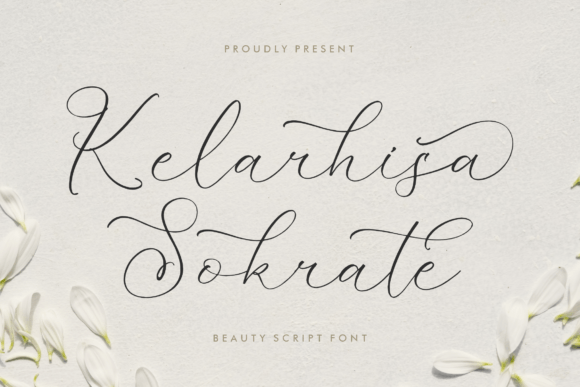
Unleash the Power of Kelarhisa Sokrate, the Ultimate Script Font for Online Signatures
Take your online presence to new heights with Kelarhisa Sokrate, an exquisite script font meticulously designed to elevate your digital signature with grace and sophistication. Inspired by the timeless beauty of calligraphy, Kelarhisa Sokrate captures the essence of handwritten elegance, transforming your online interactions into a work of art.
Crafted by the visionary team at Storytype Studio, Kelarhisa Sokrate is more than just a font; it's an expression of your individuality. Its captivating curves and delicate swashes dance across the screen, leaving an unforgettable impression on those who encounter your digital signature. Designed with the modern professional in mind, Kelarhisa Sokrate effortlessly enhances your online presence, whether you're an entrepreneur, artist, or influencer.
Step into a world of sophistication and refinement as you embrace Kelarhisa Sokrate's boundless versatility. With its inherent charm, this font seamlessly adapts to a myriad of creative endeavors. Whether you're designing an elegant logo, crafting a book or movie title that exudes timeless appeal, or seeking to elevate your fashion brand with a touch of luxury, Kelarhisa Sokrate is your perfect companion.
Elevate your social media presence with Kelarhisa Sokrate, the font that commands attention and leaves a lasting impression. Imagine your Instagram feed adorned with captivating quotes and messages, each rendered in the beautiful strokes of Kelarhisa Sokrate. Your audience will be mesmerized by the visual allure of your posts, drawn in by the elegance and grace that Kelarhisa Sokrate effortlessly exudes.
Kelarhisa Sokrate is more than just a font; it's an investment in your online reputation. Its timeless beauty and unwavering quality ensure that your digital signature will remain relevant and impactful for years to come. As the online world continues to evolve, Kelarhisa Sokrate will stand the test of time, ensuring that your digital presence remains a beacon of sophistication and professionalism.